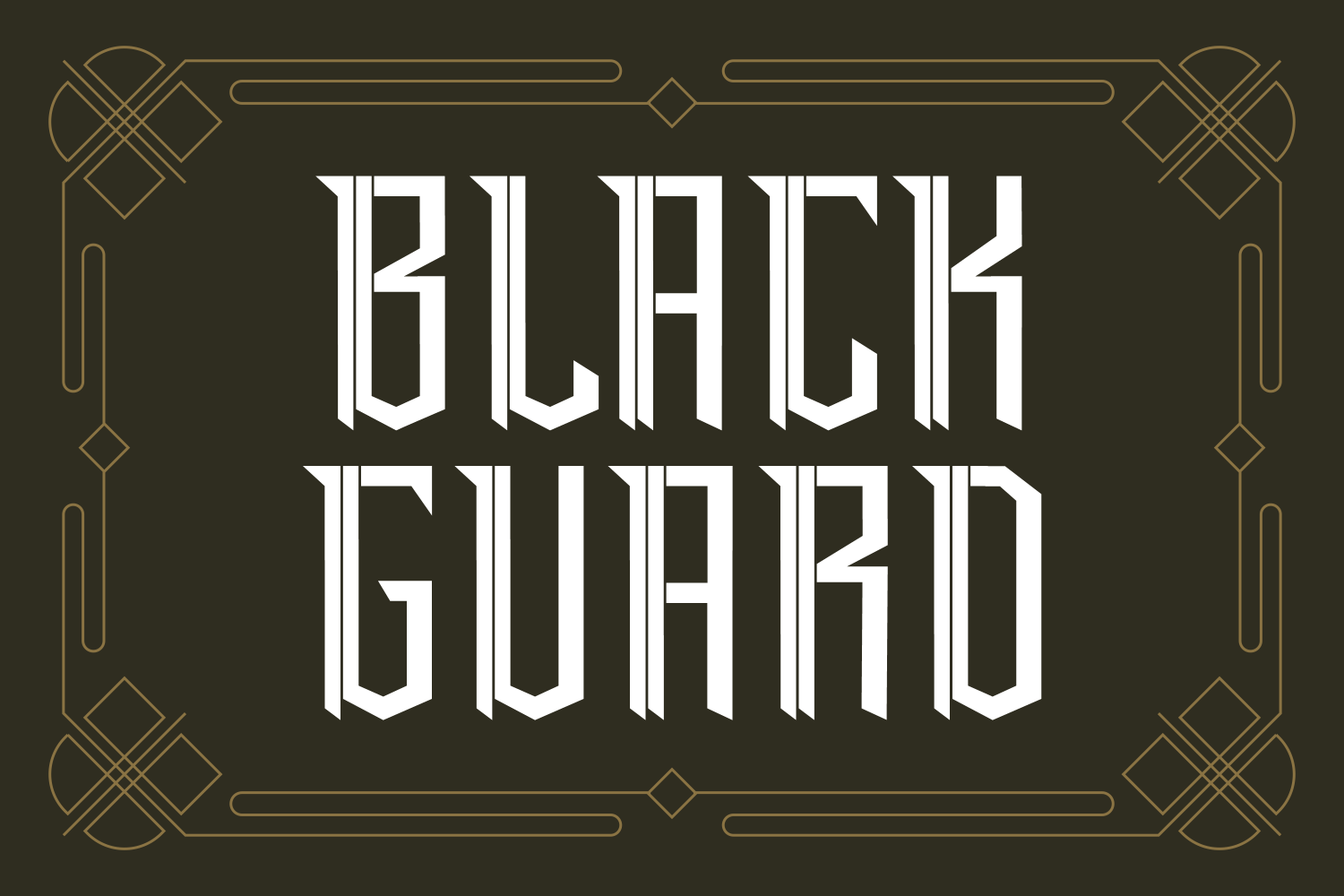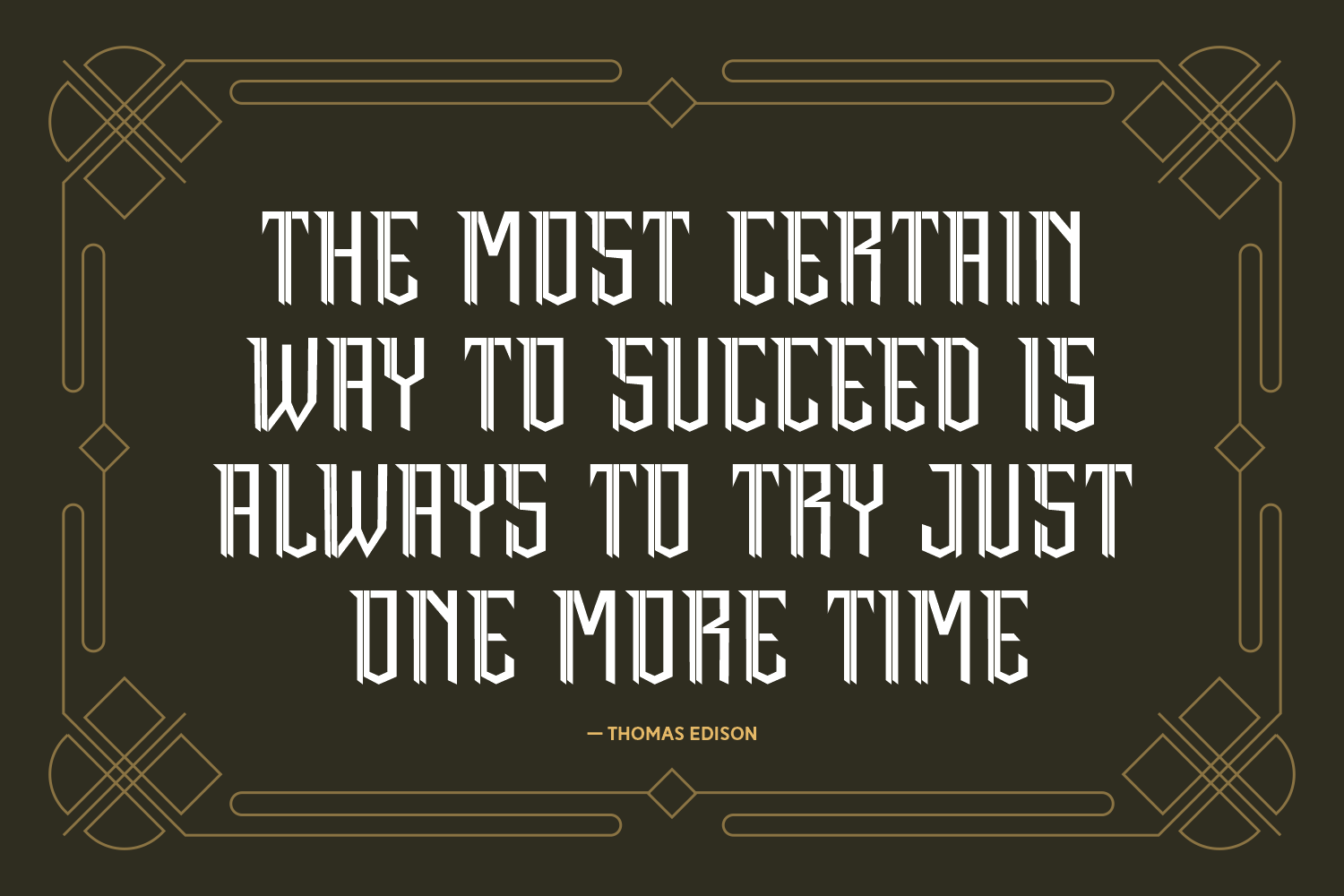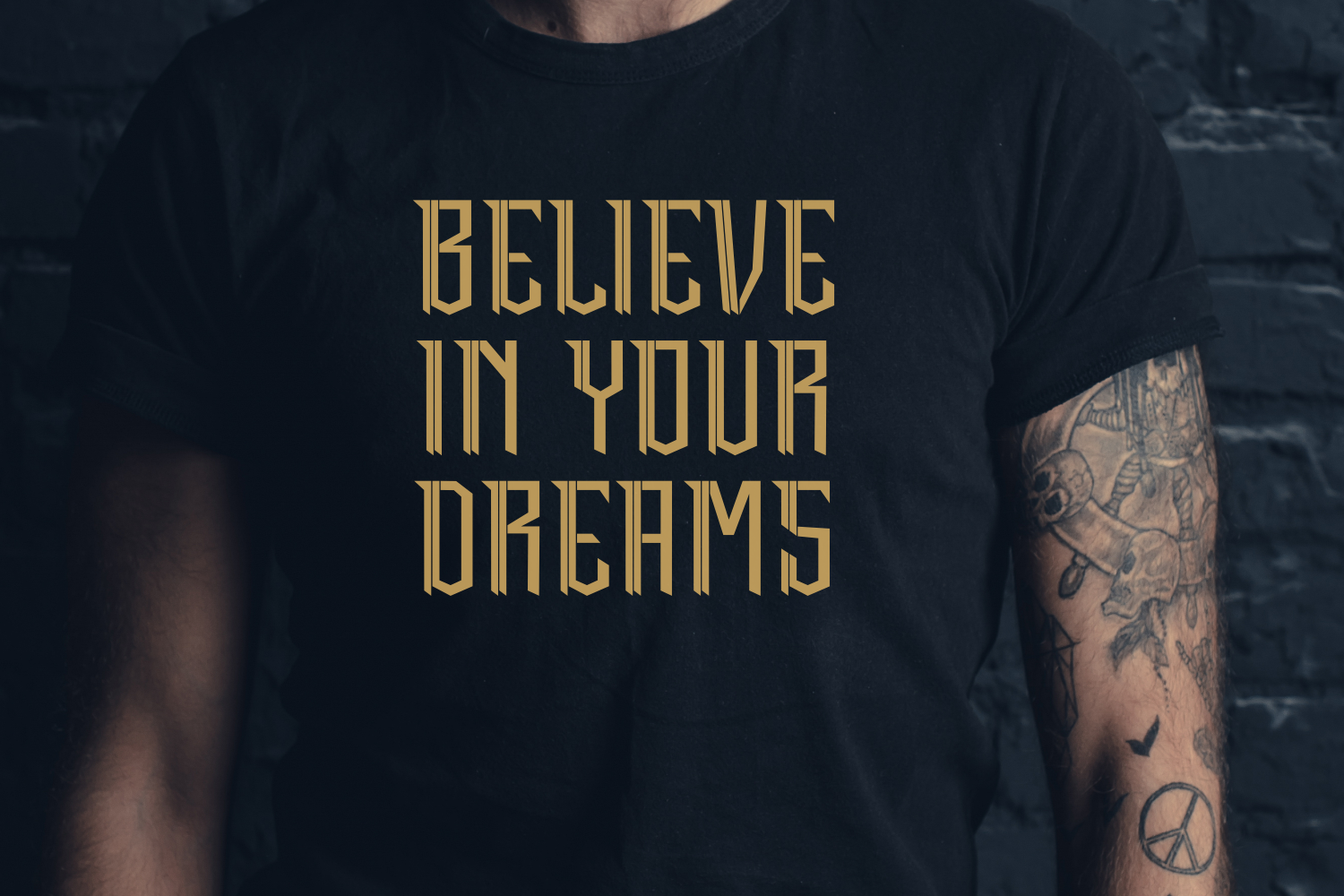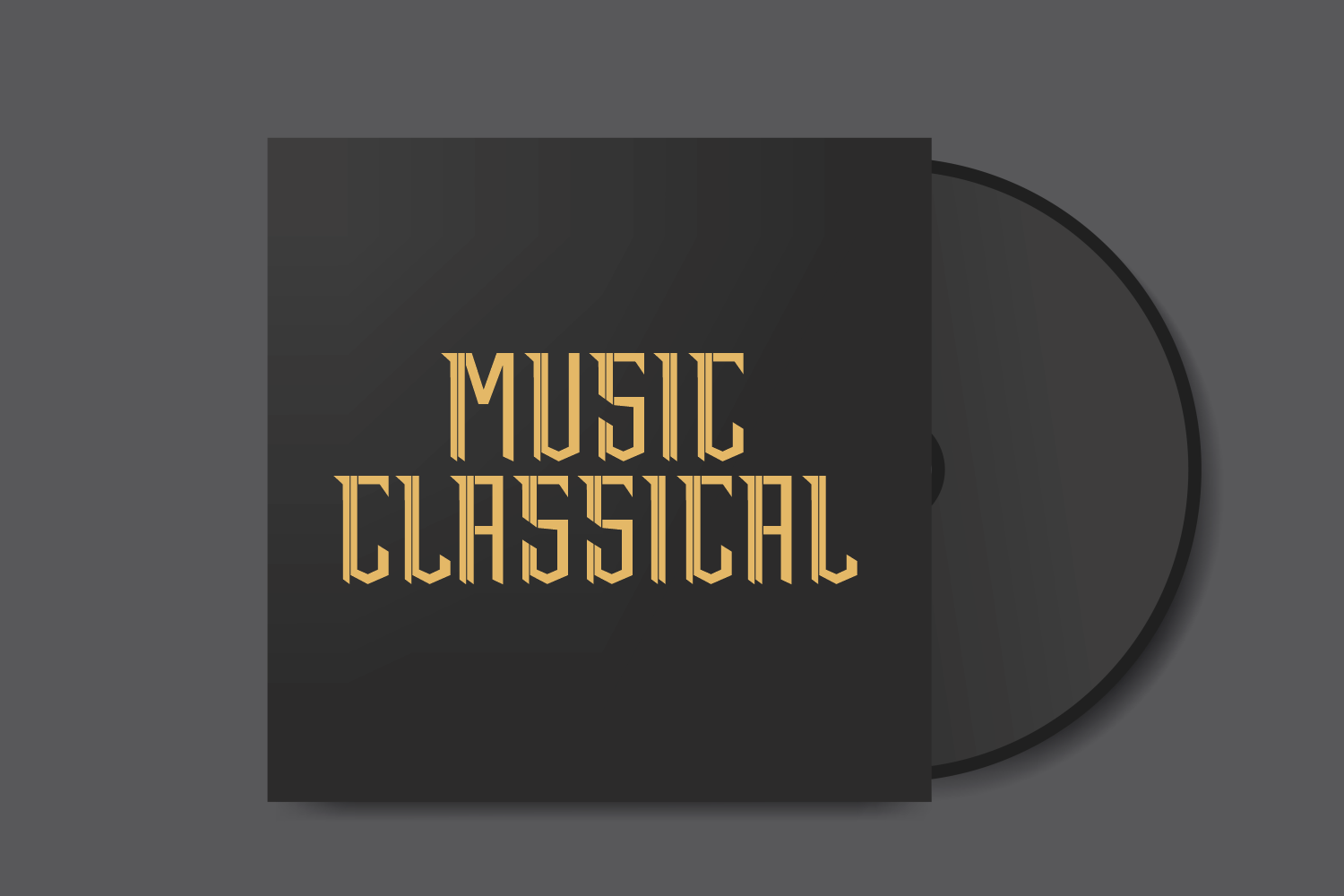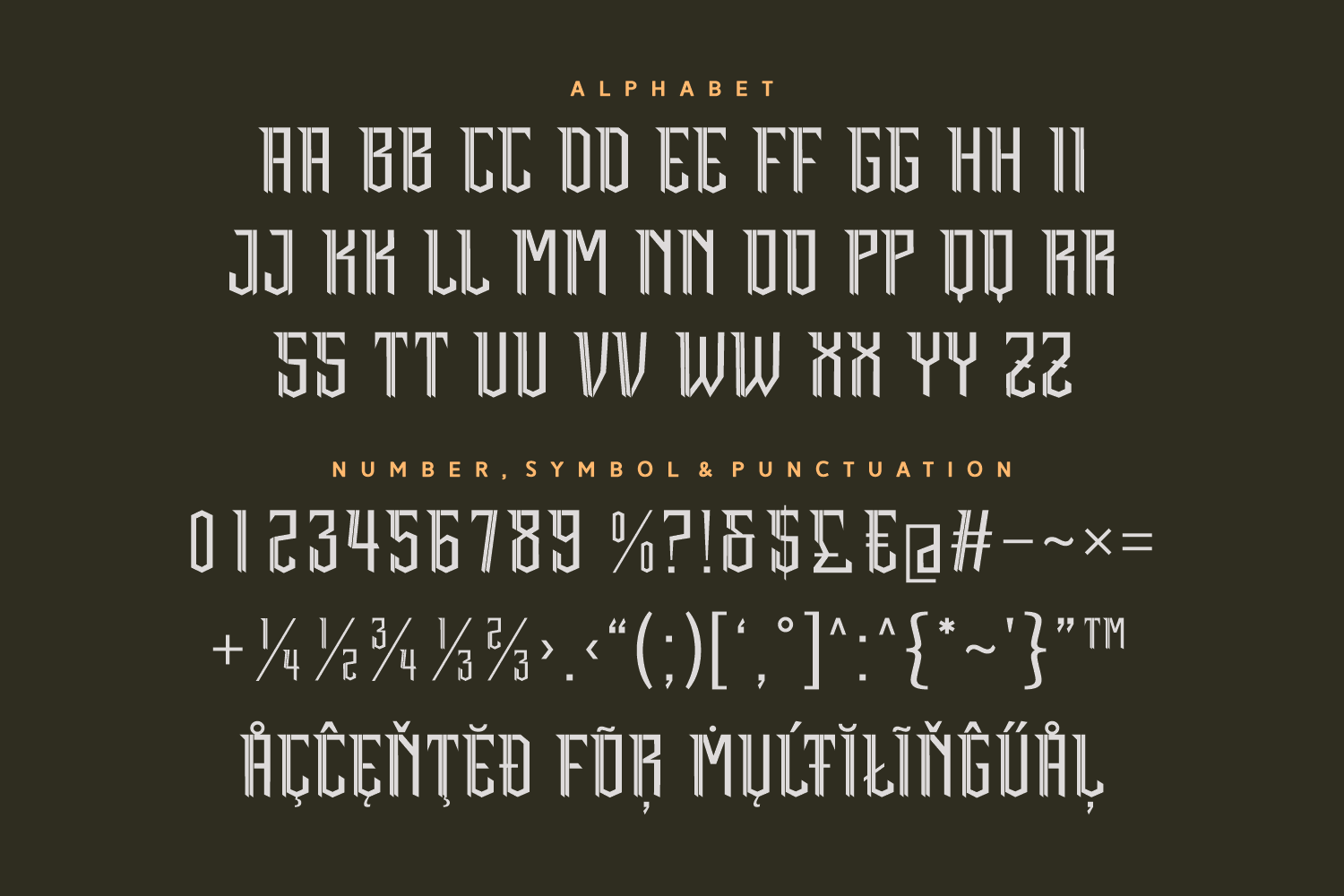
Black Guard is a commanding display font that blends Art Deco elegance with gothic intensity. Its tall, geometric letterforms and sharp, angular cuts create a bold, futuristic presence while maintaining a vintage sophistication. Ideal for logos, posters, game titles, or dark-themed branding, Black Guard brings a sense of power, precision, and style to any project.